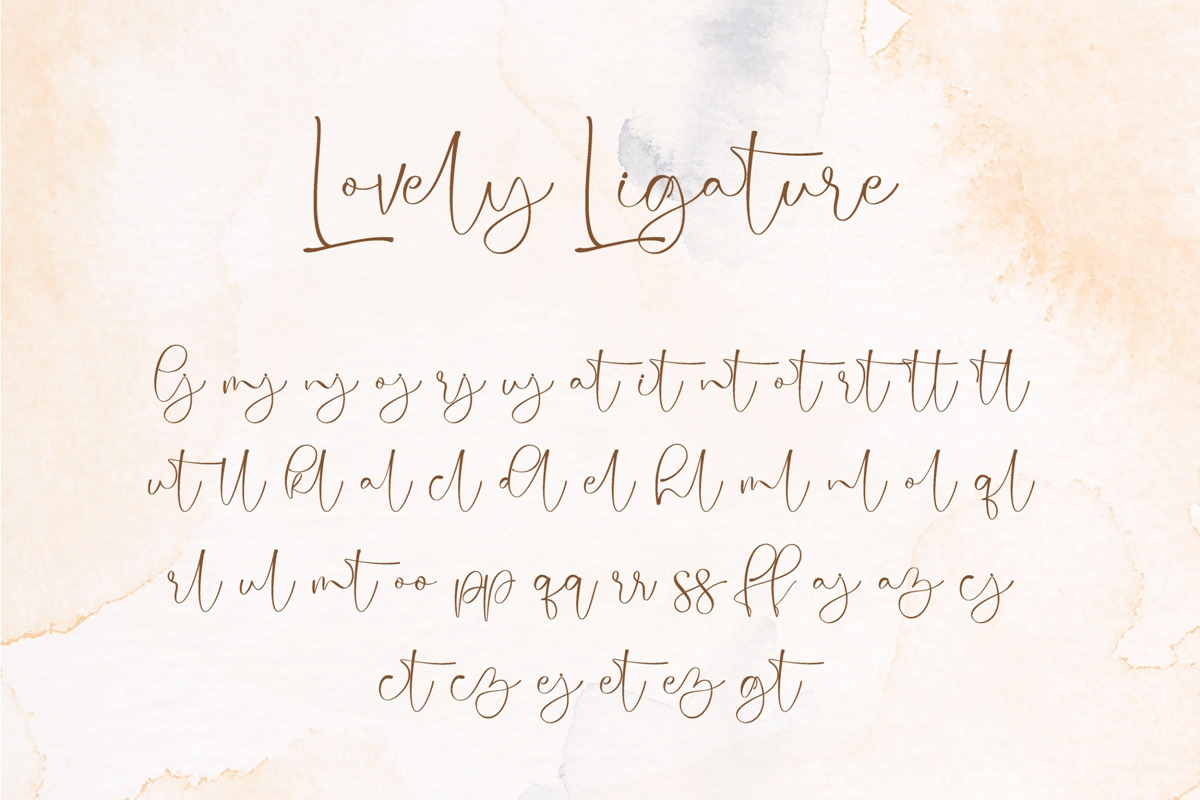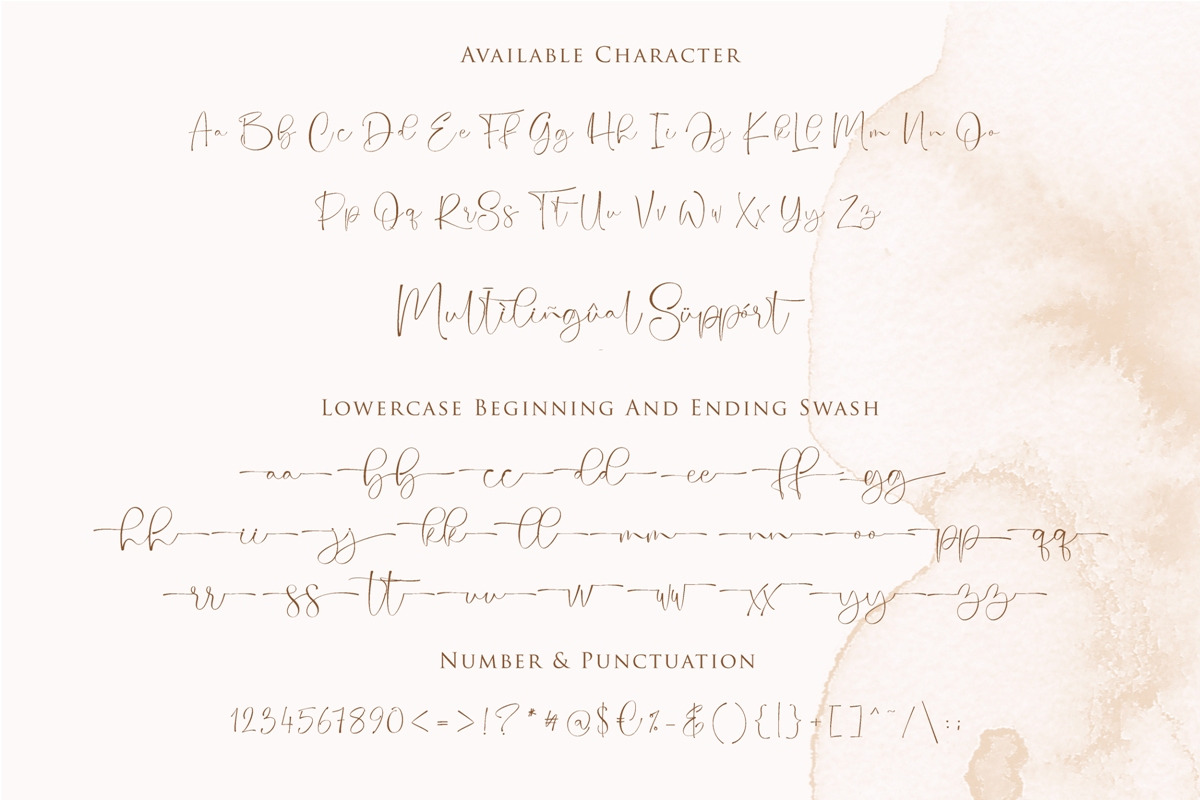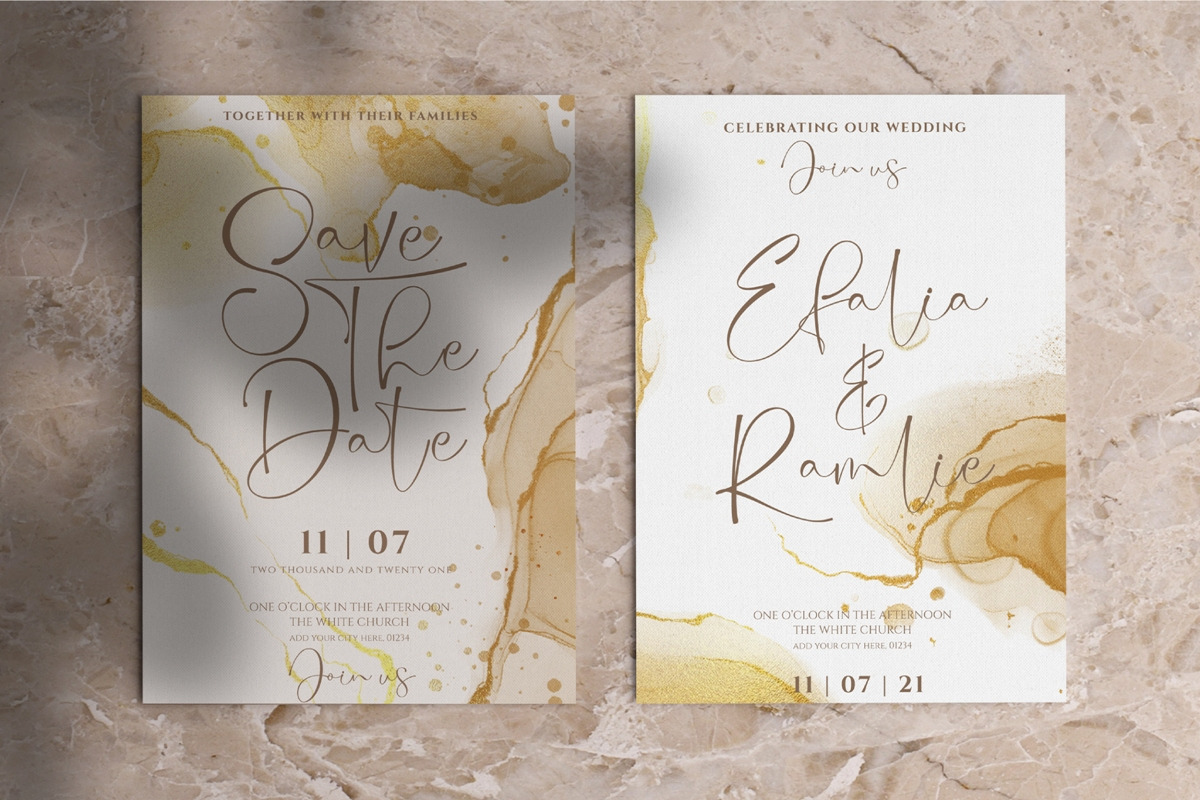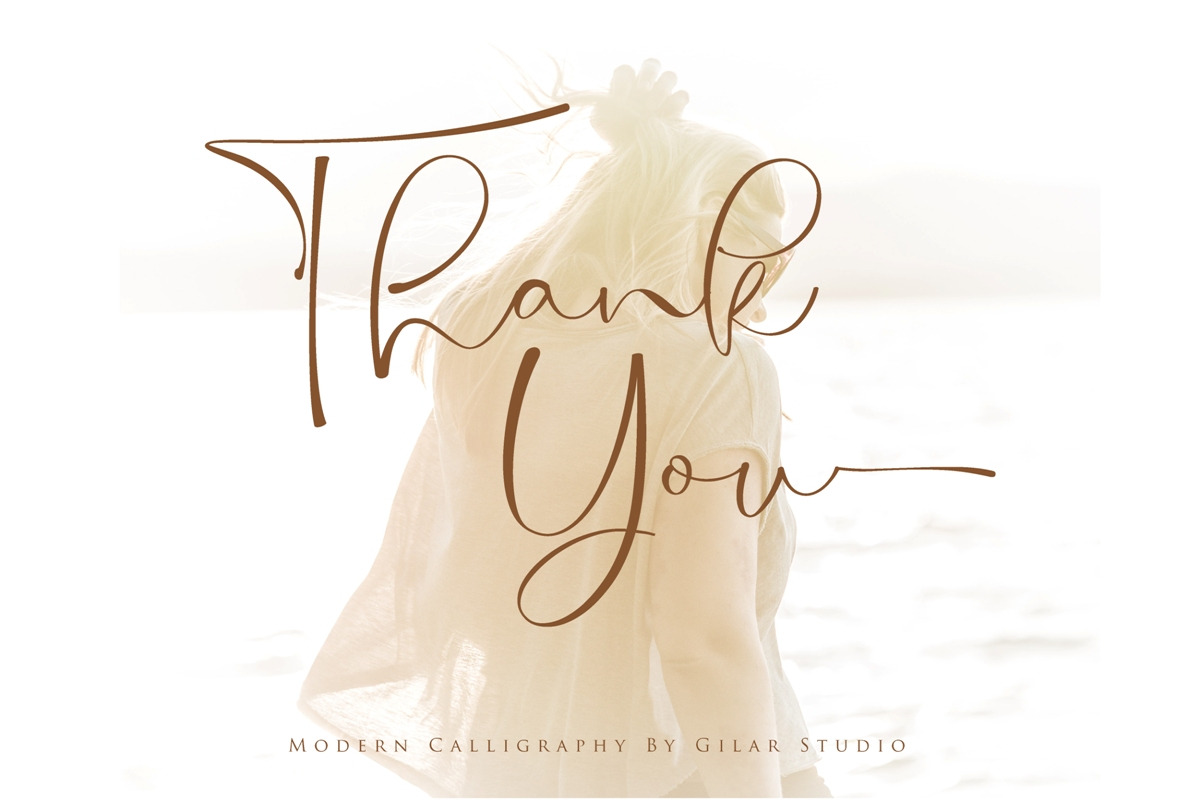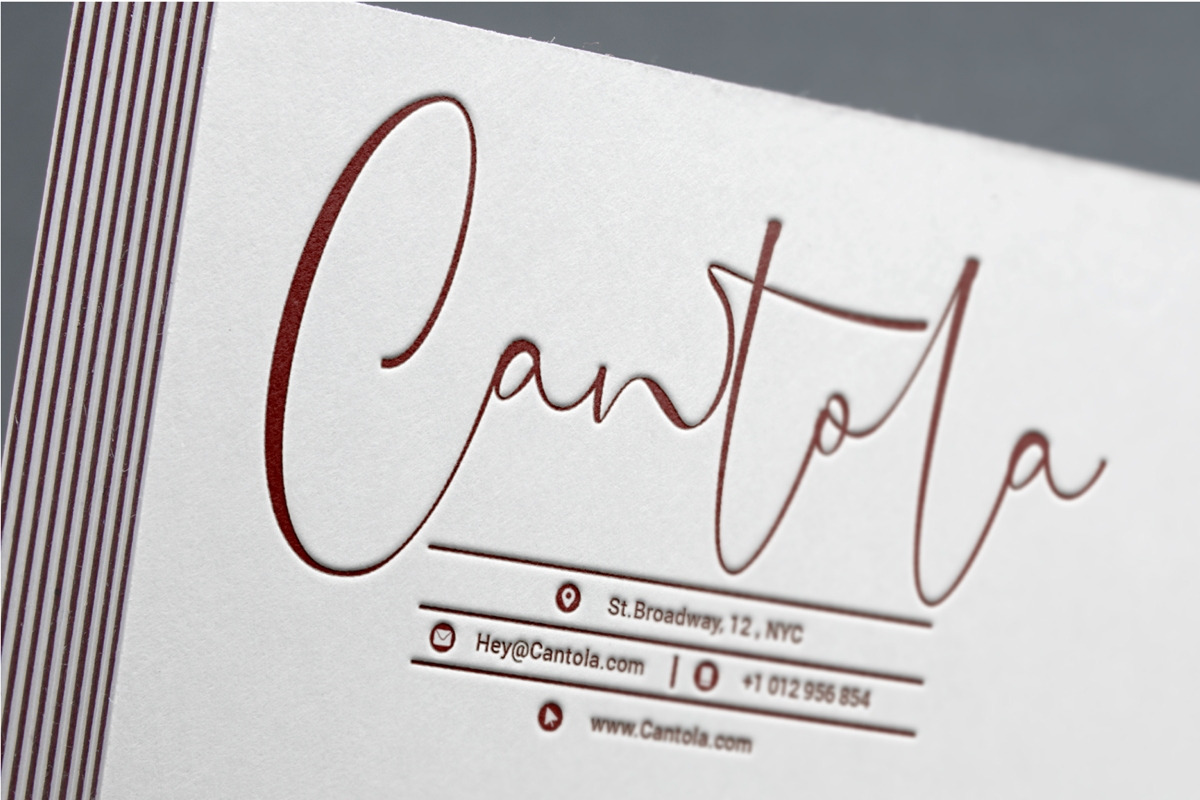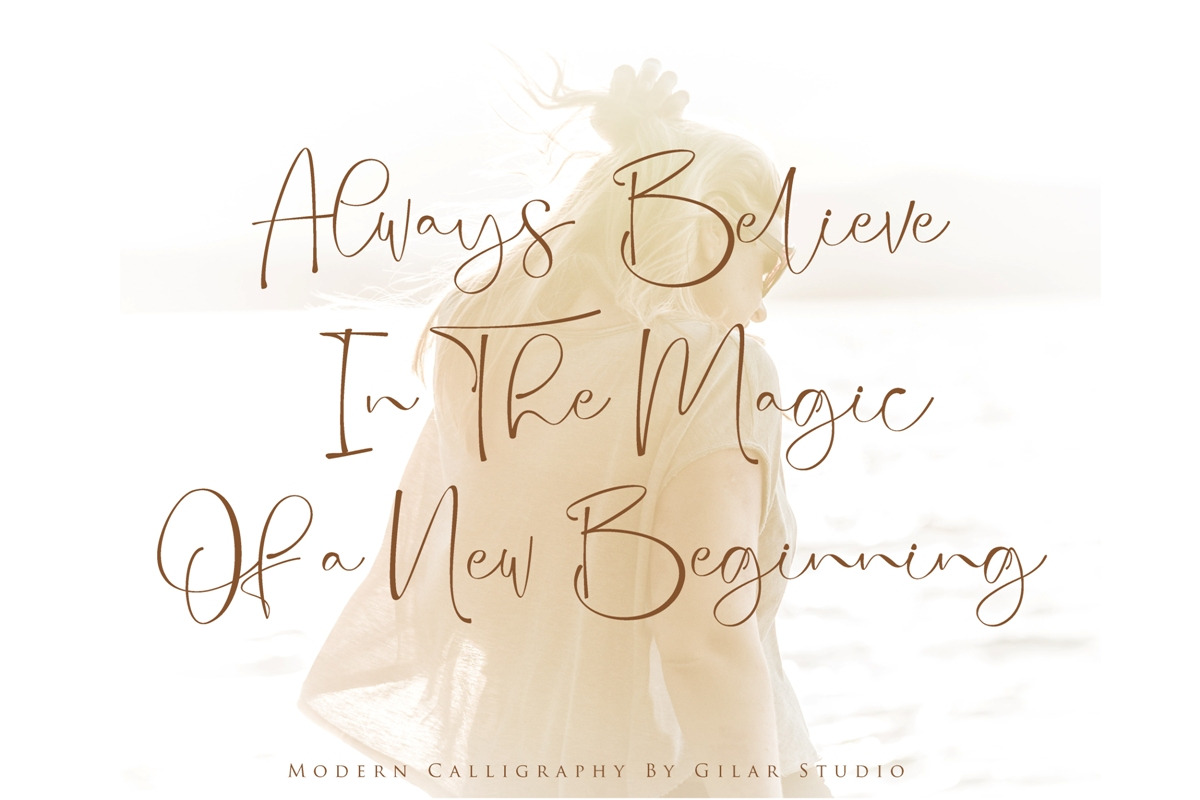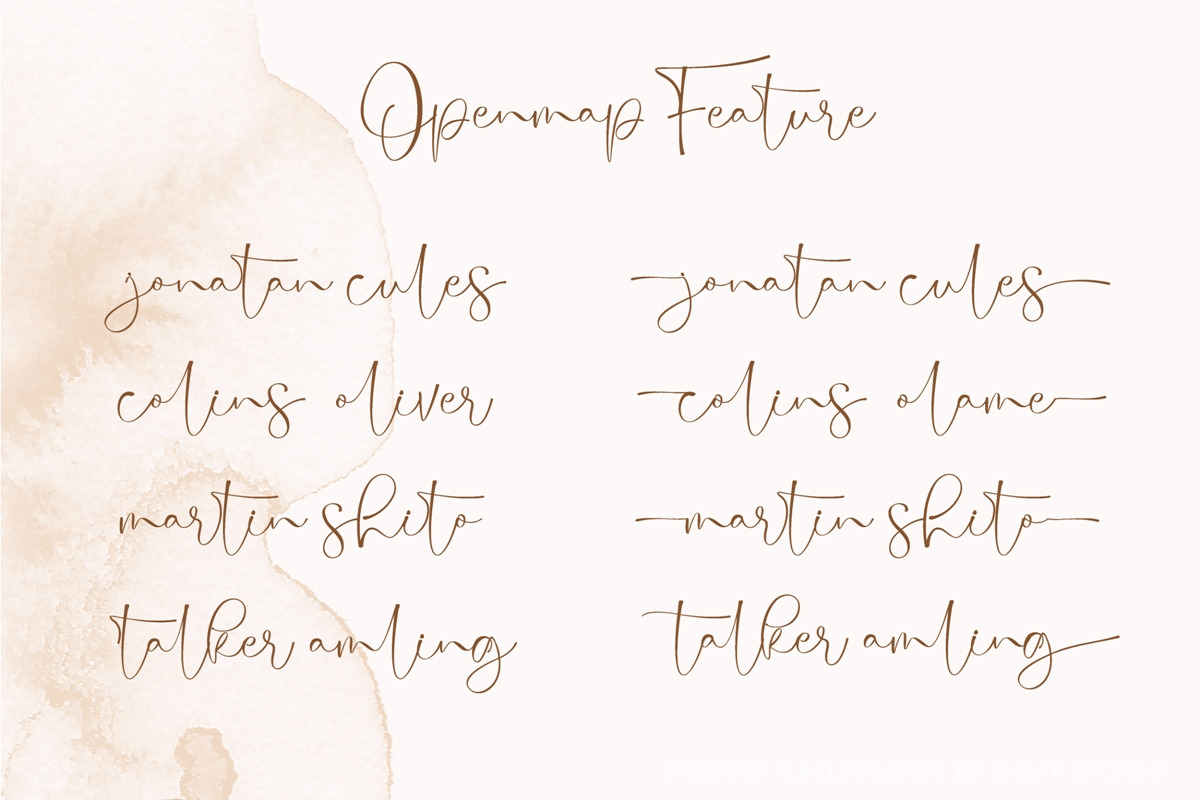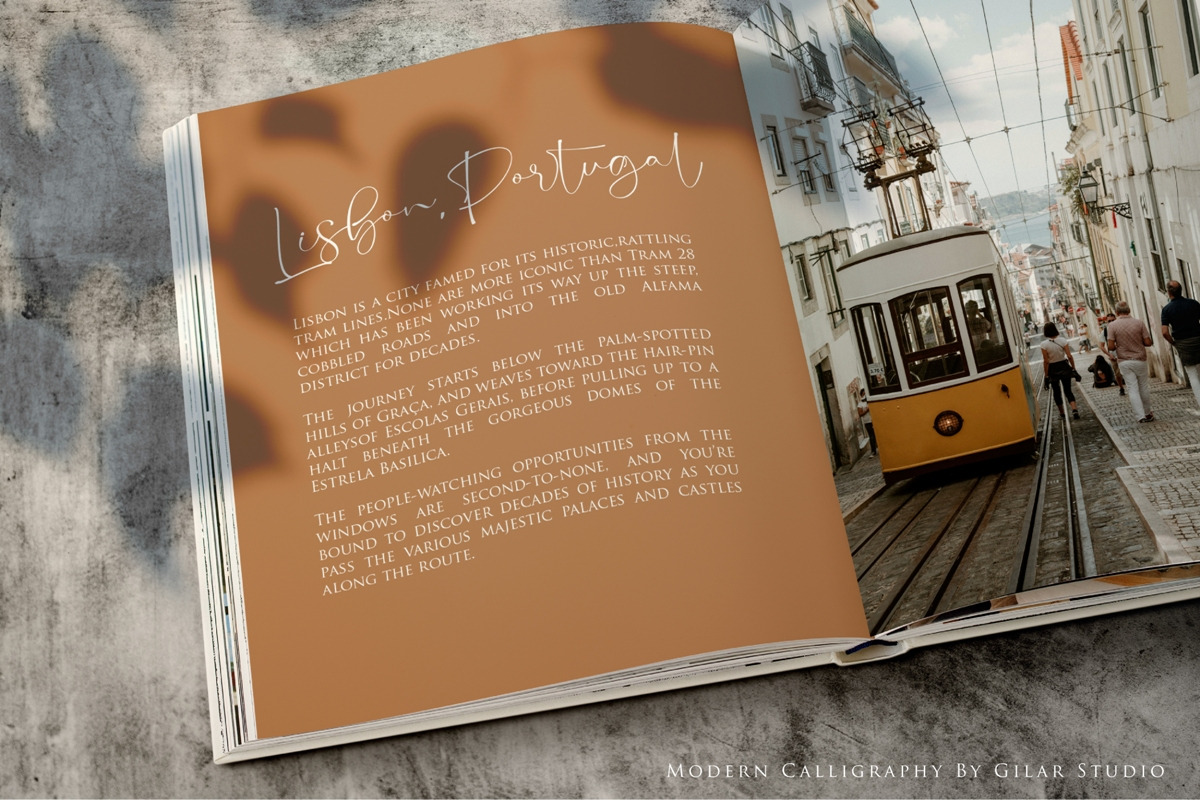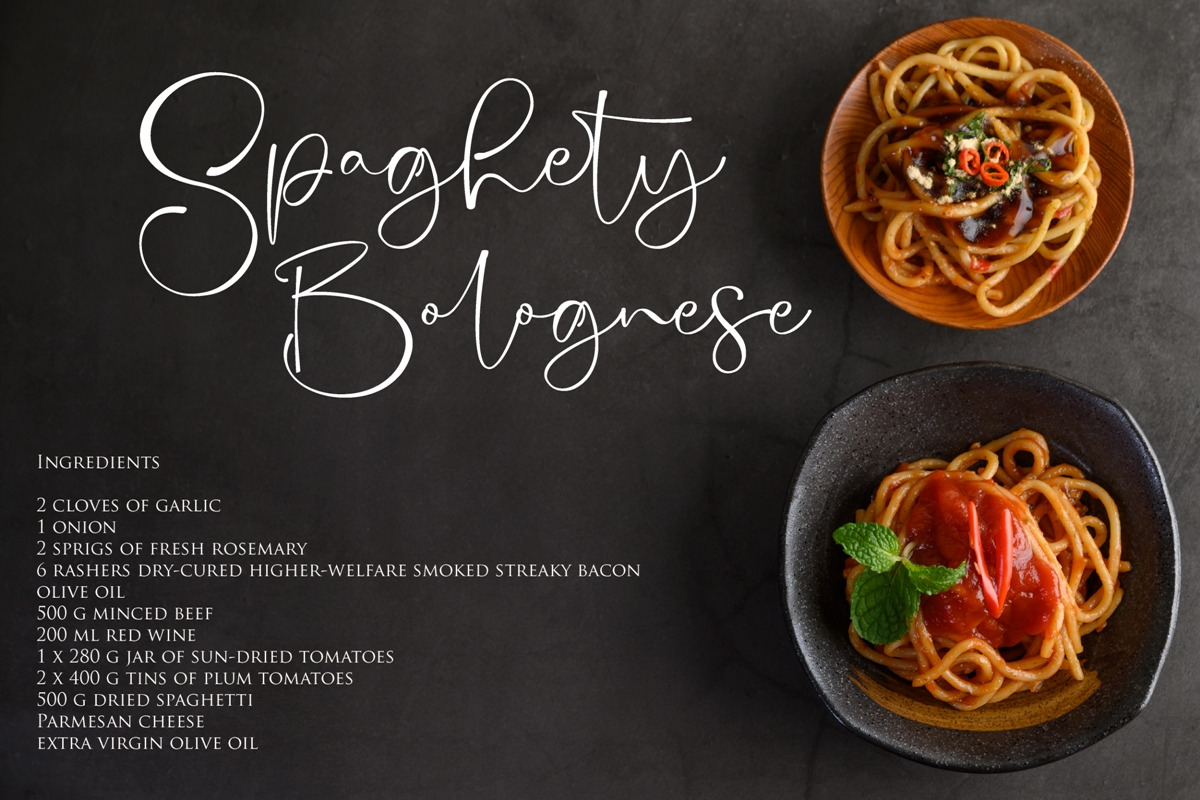
Quality Times | Modern Calligraphy
Quality Times is a stylish modern calligraphy font with casual chic flair. It is perfect for branding, wedding invites and cards, and maybe for red wine label.
Quality Times includes full set of gorgeous uppercase and lowercase letters, numerals, a large range of punctuation and ligatures. All lowercase letters include beginning and ending swashes, giving realistic hand-lettered style.